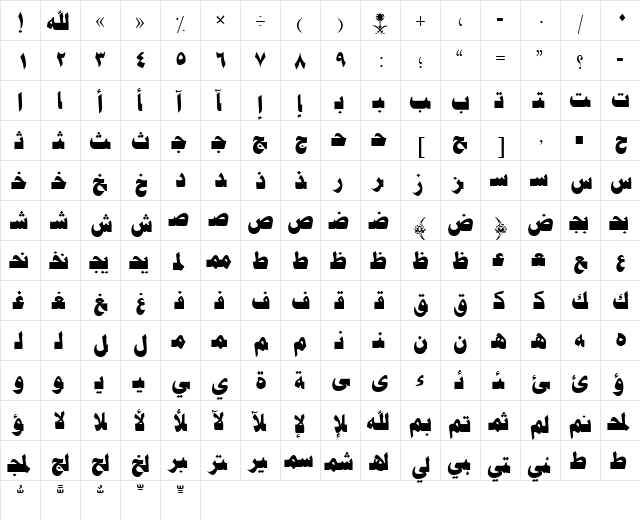
AYM Jeddah S_U normal. Normal
Design Context for AYM Jeddah S_U normal. Typeface
AYM Jeddah S_U normal. takes a measured approach to typography — its balanced proportions and neutral character make it a reliable workhorse for both digital and print work.